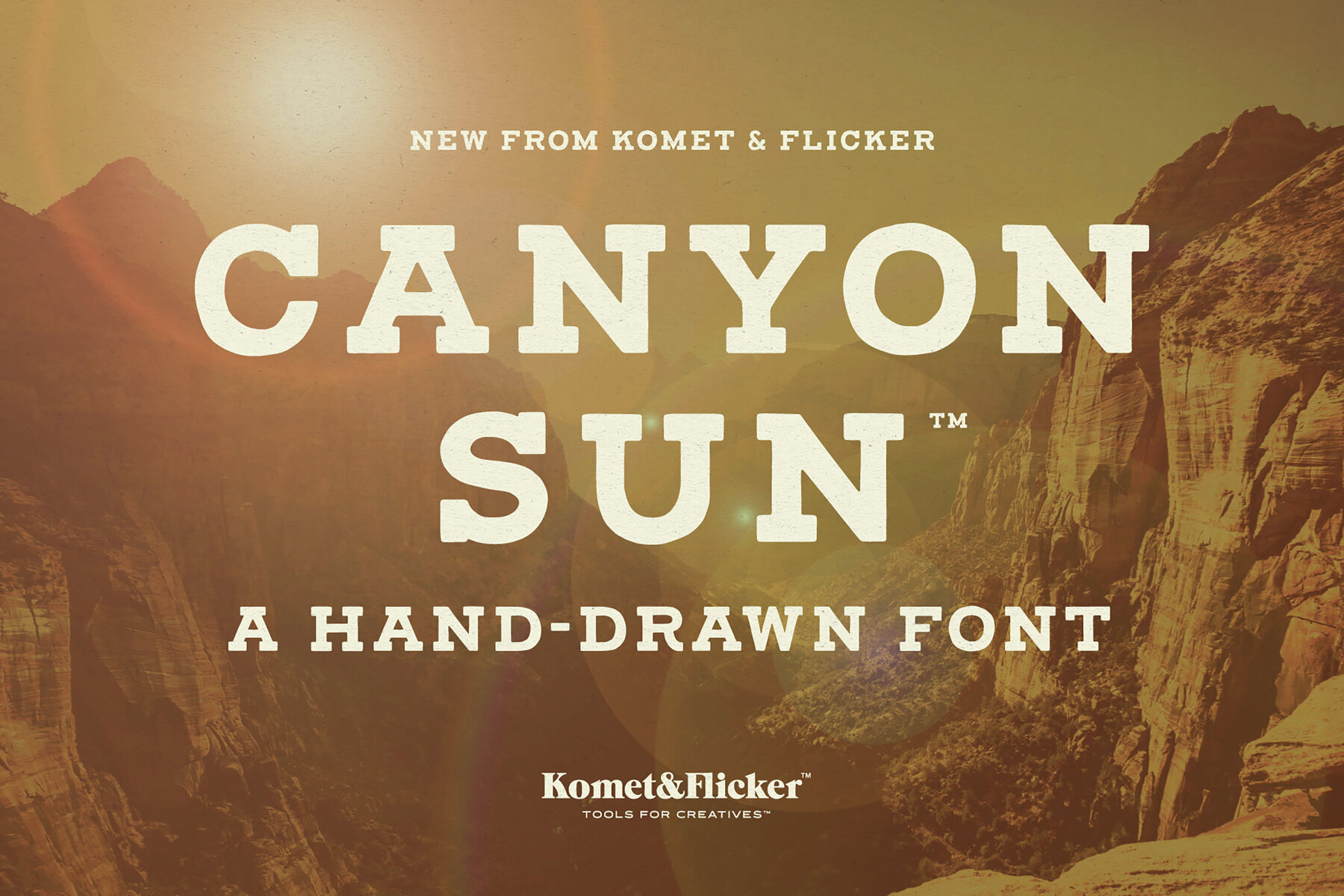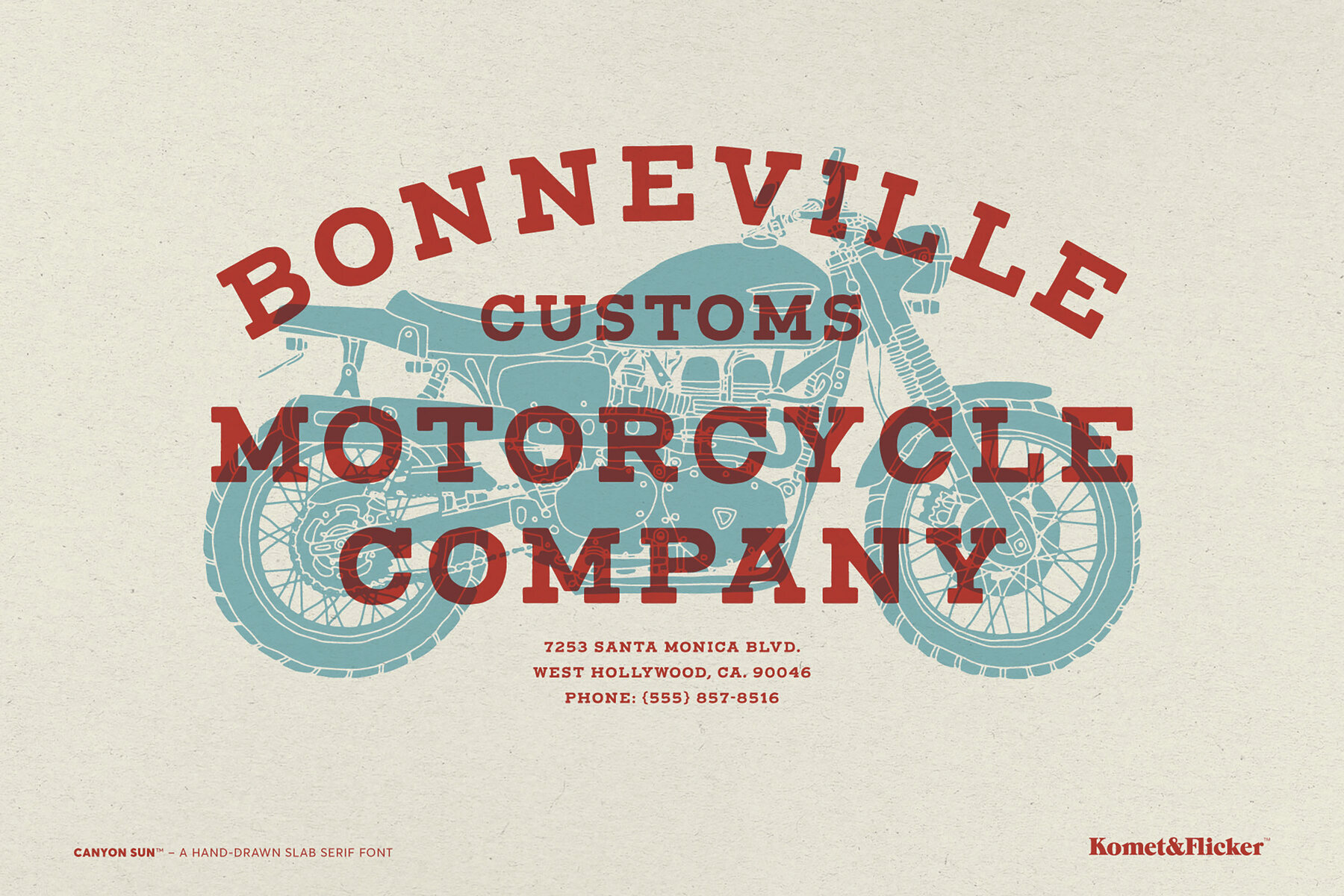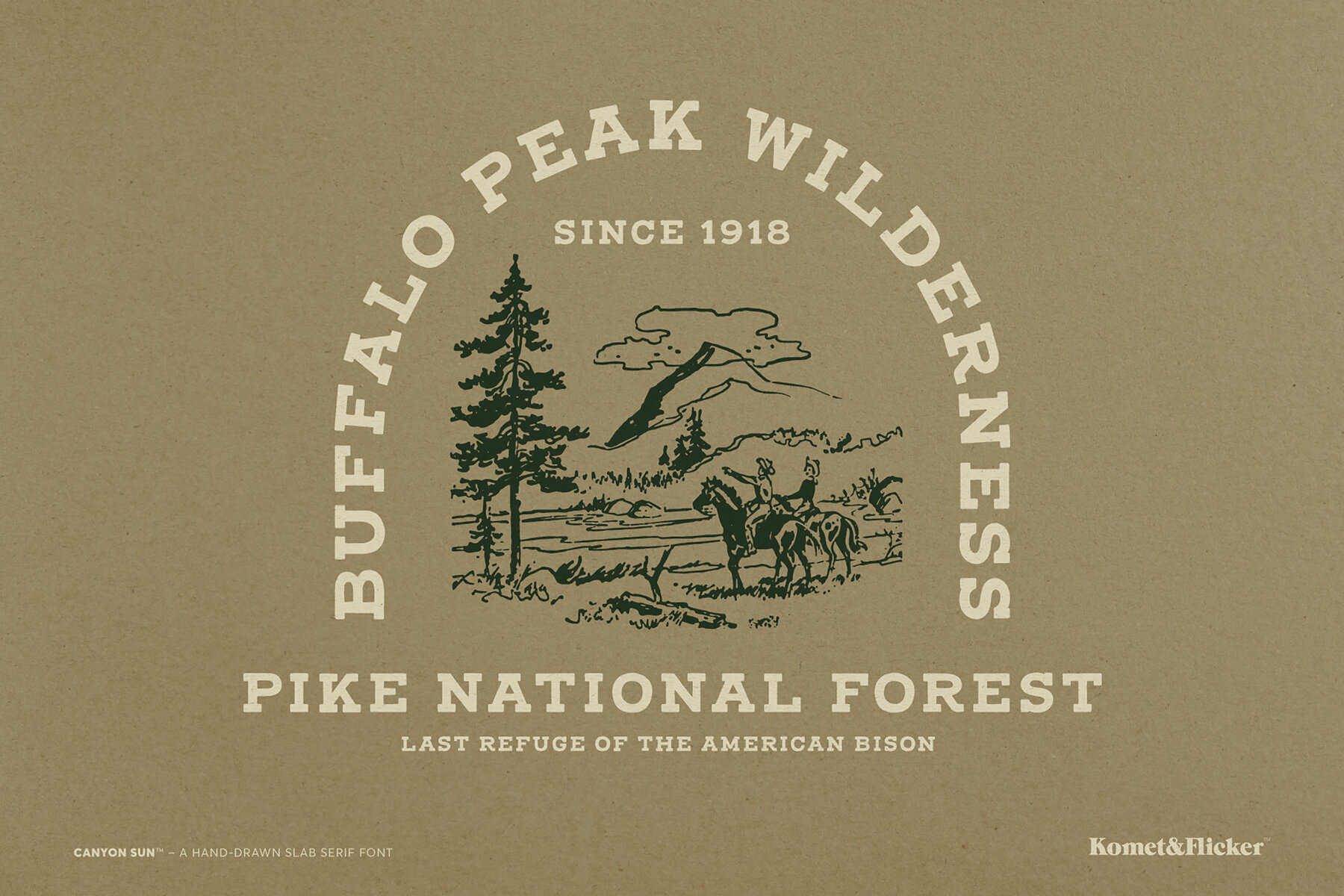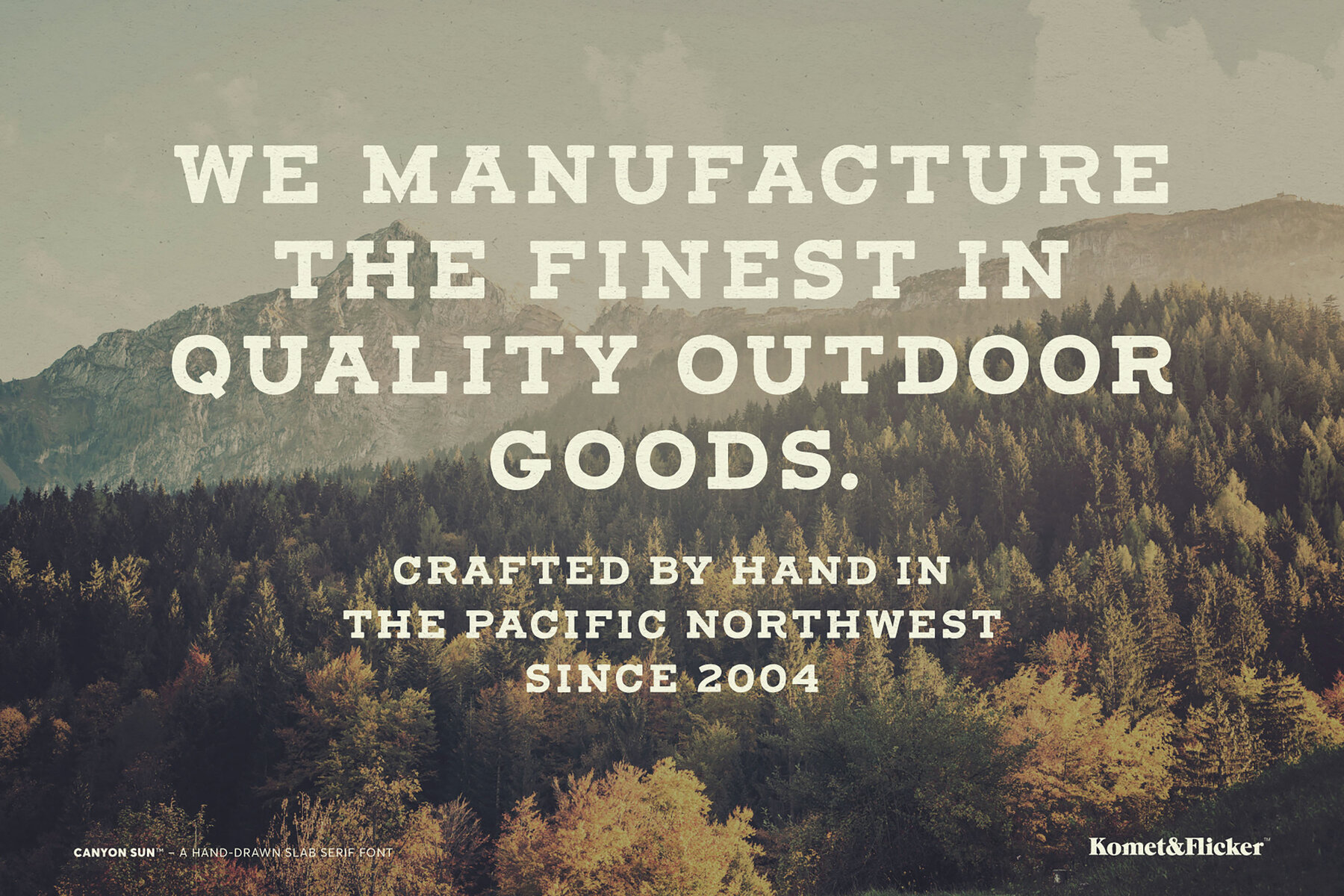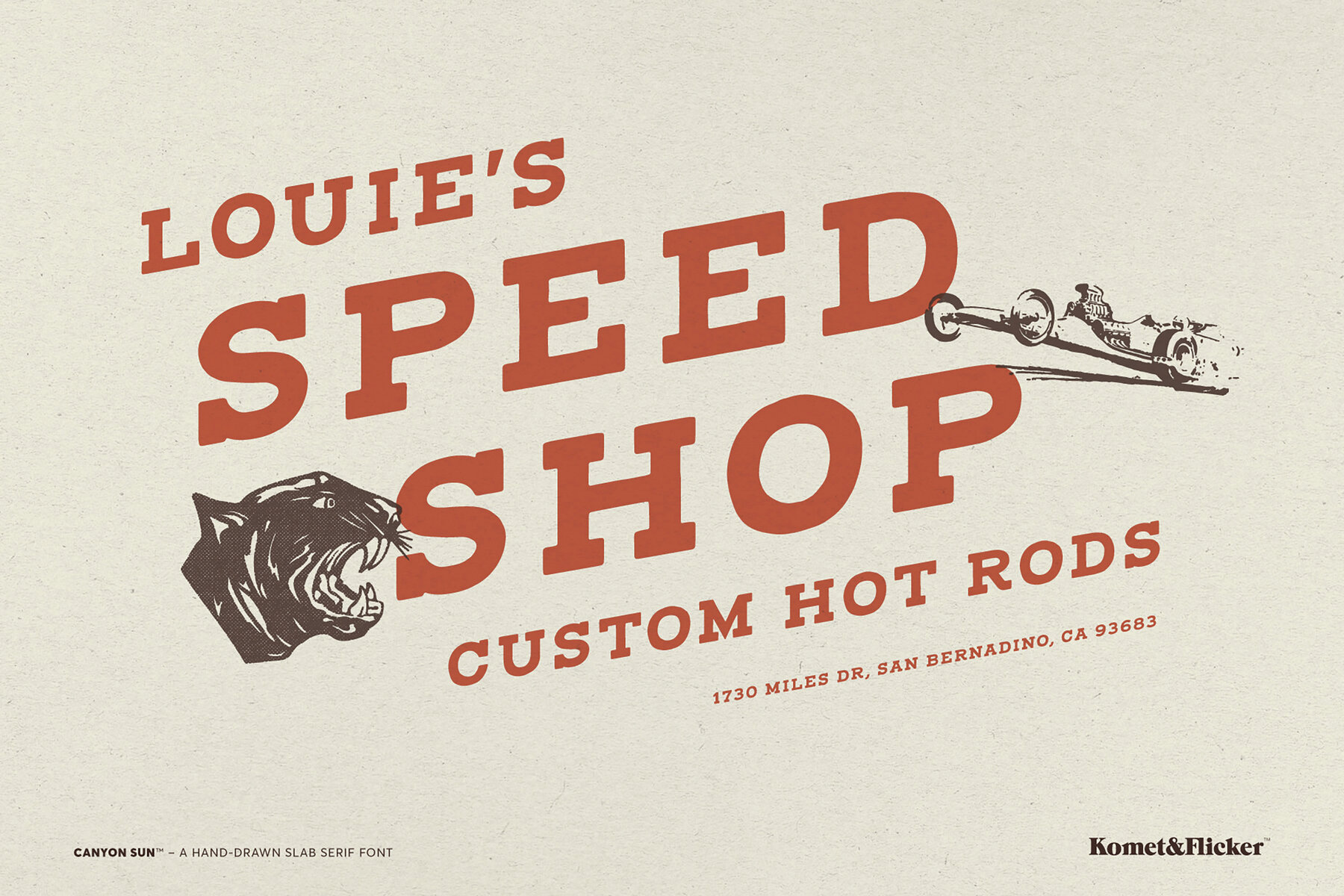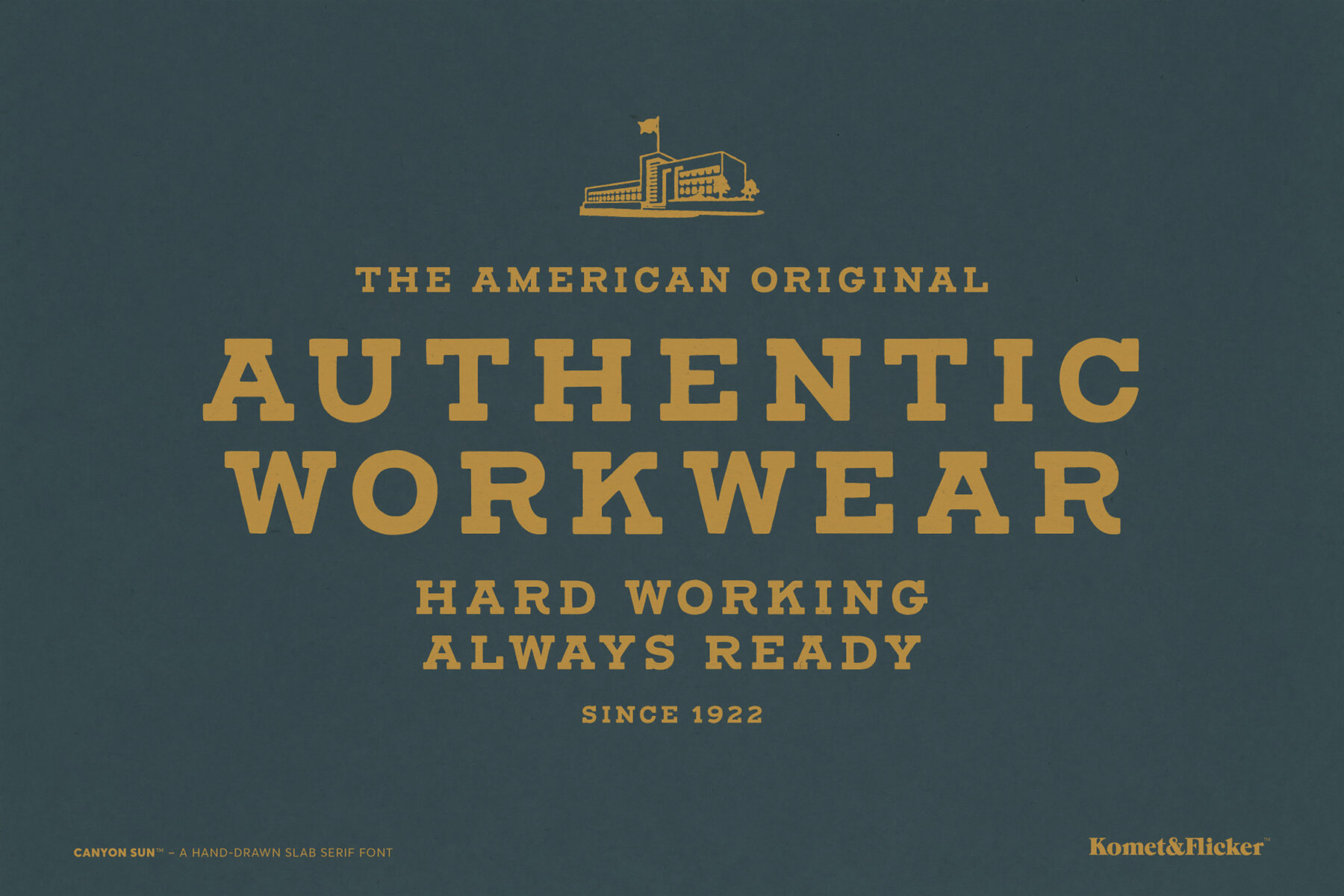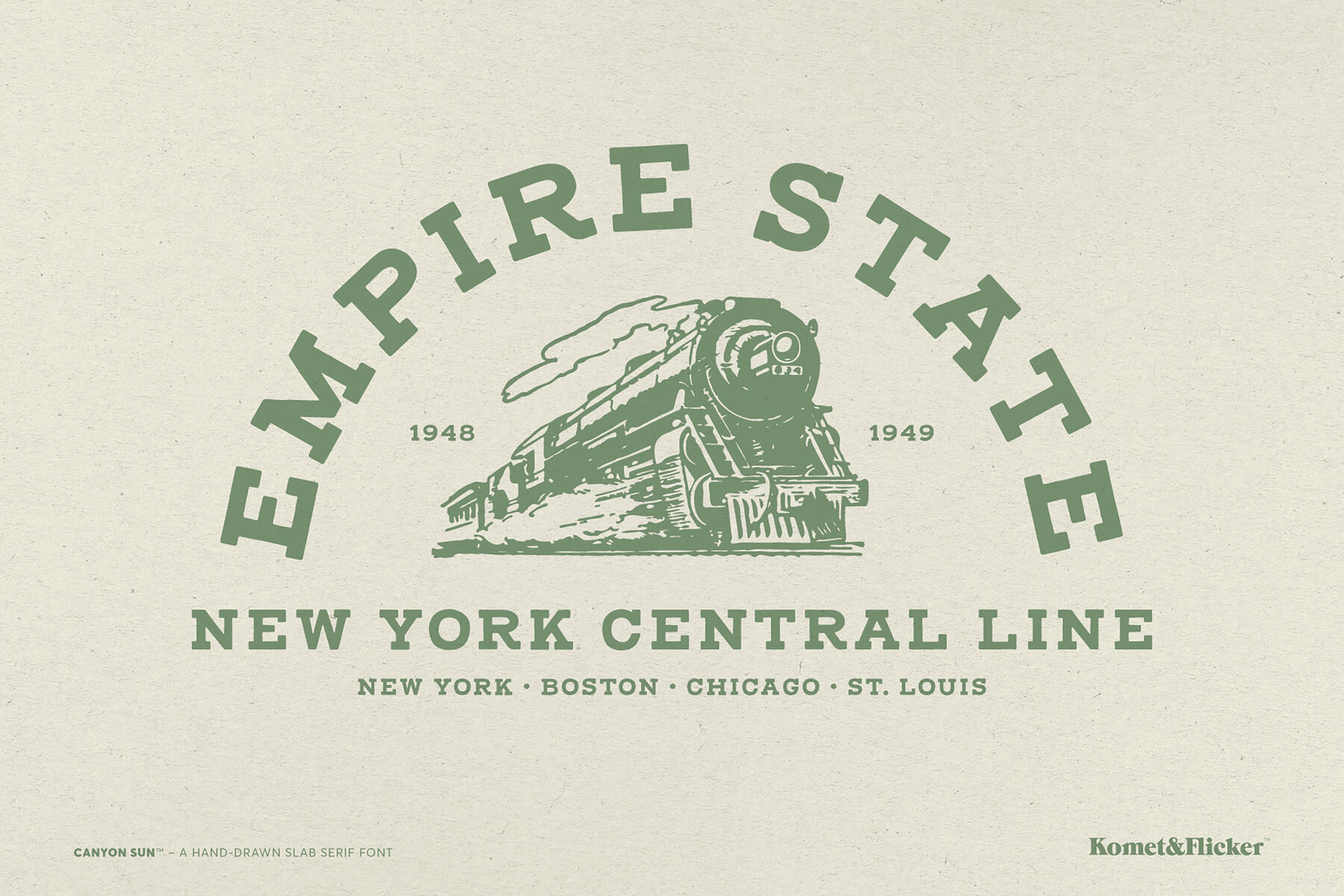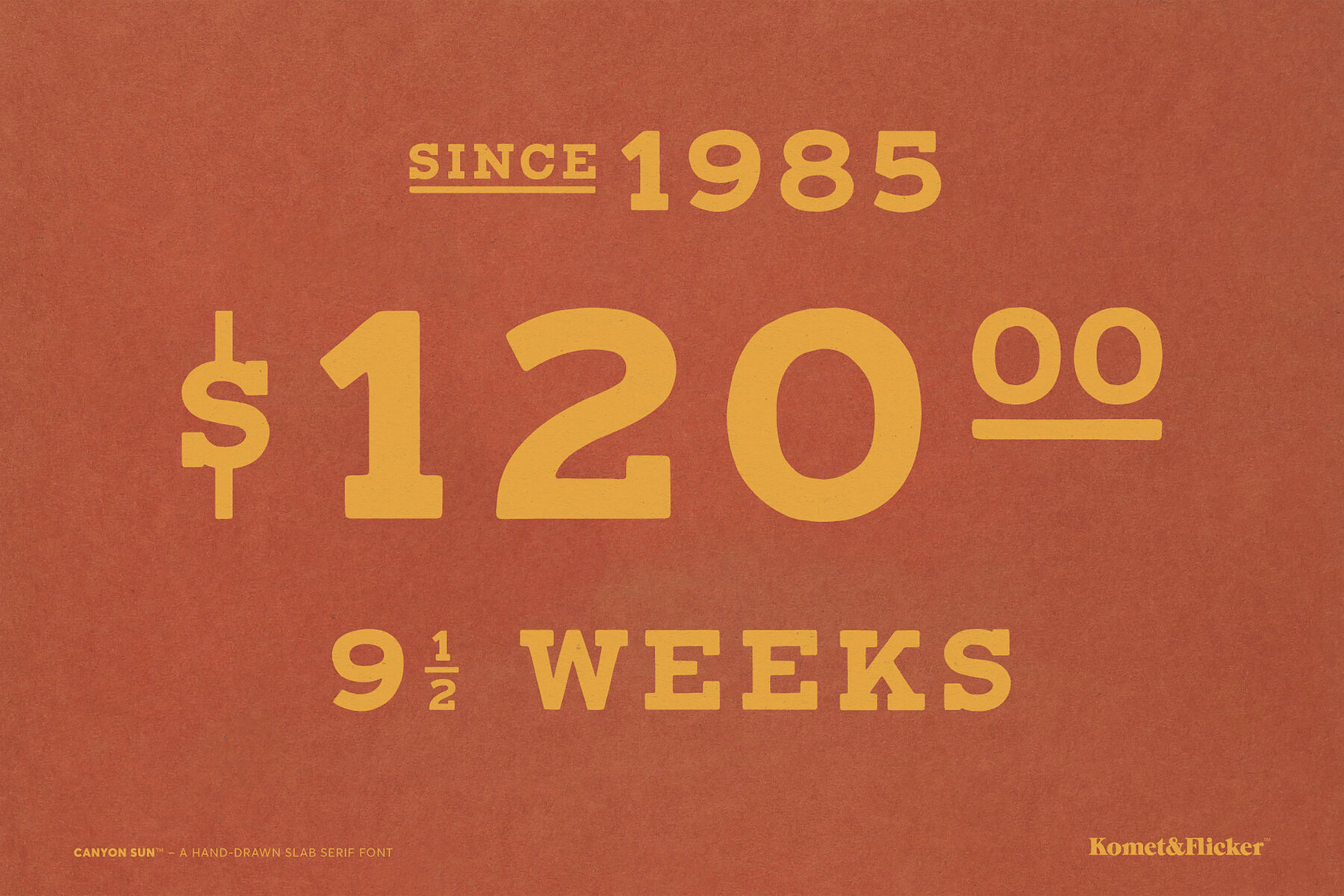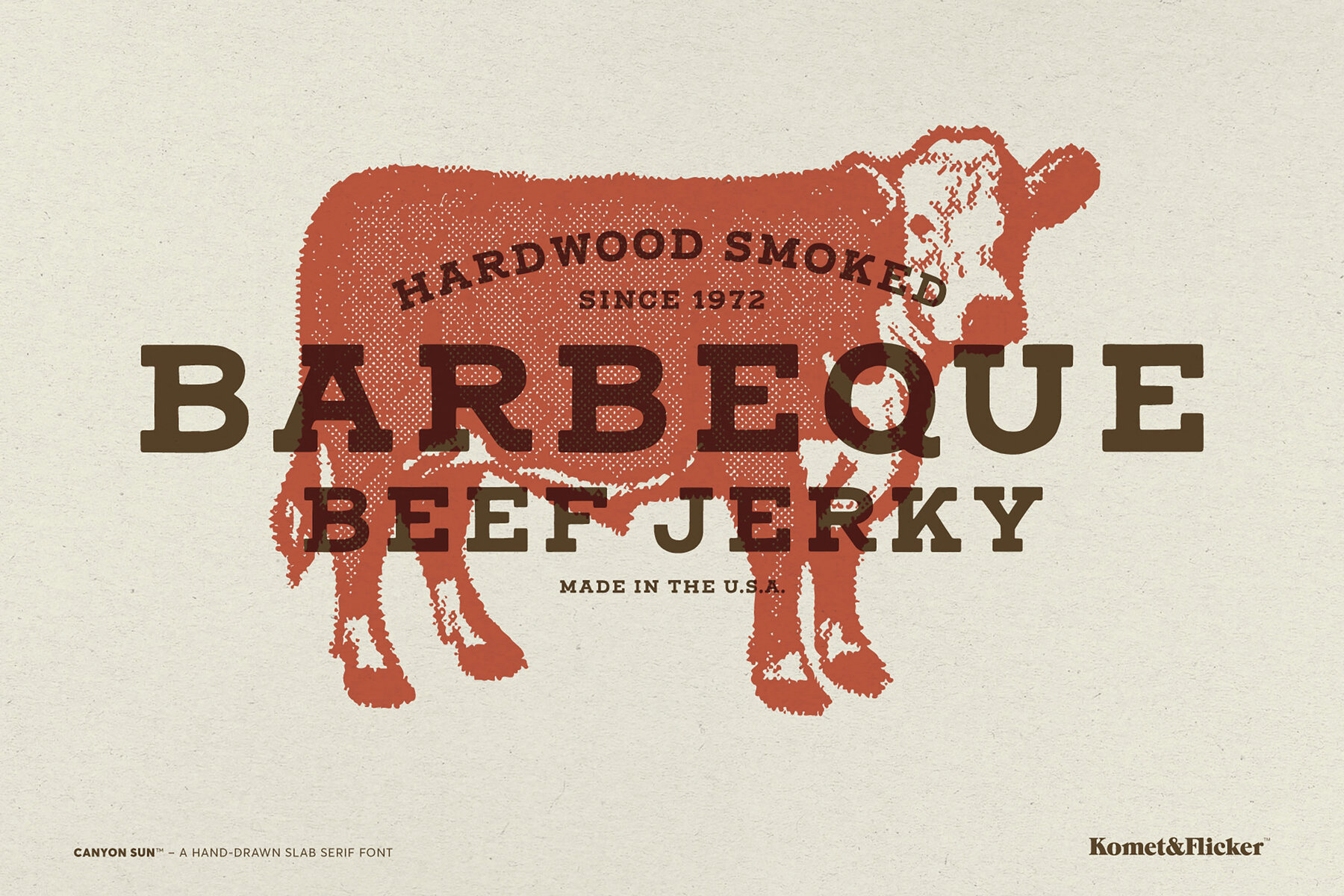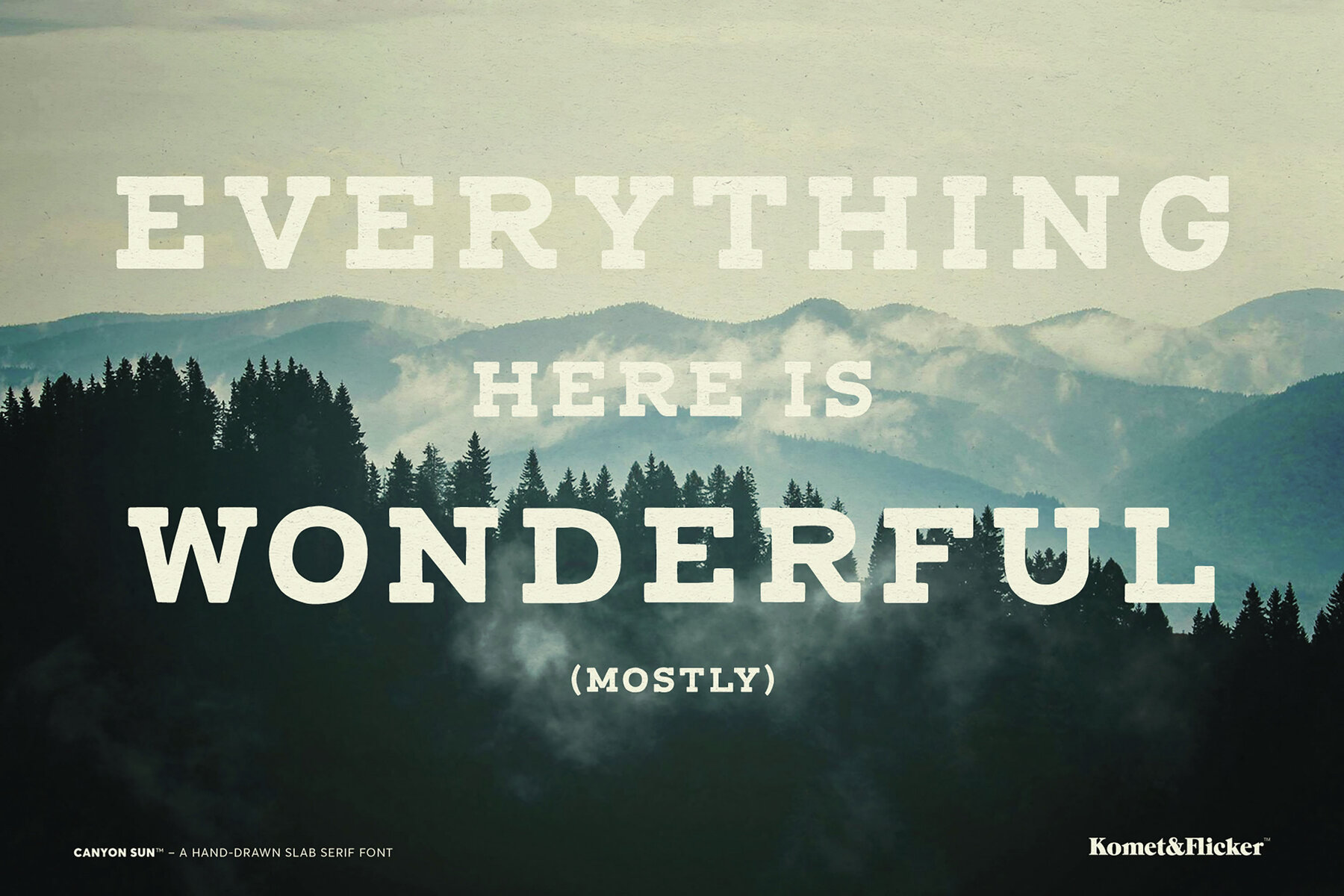
Canyon Sun Font
Canyon Sun Bold
Say hello to Canyon Sun, a charming all caps slab serif font with a friendly, down-to-earth vibe. Crafted to be casual and approachable, this typeface brings a warm, human touch to your projects – perfect for anything from playful branding to relaxed layouts. This font has been hand-drawn, giving the font an organic, slightly imperfect personality that makes it feel truly unique. Canyon Sun also comes with a set of 20 custom connecting words (like AND, THE, WITH) designed to integrate with the rest of your text for added flair. THIS FONT INCLUDES In Illustrator, the extra custom glyphs can easily be accessed in the "Type → Glyphs" panel. In Photoshop they can be accessed through "Type → Panels → Glyphs Panel".